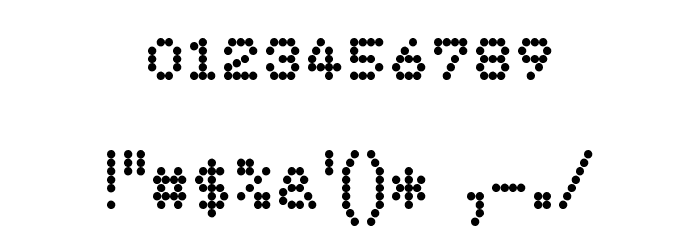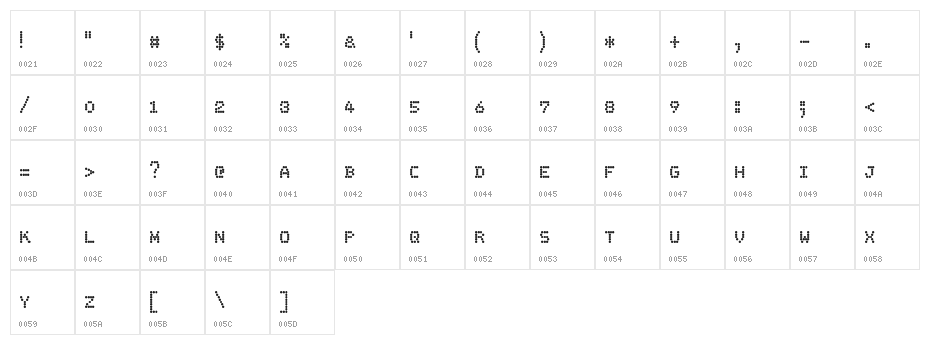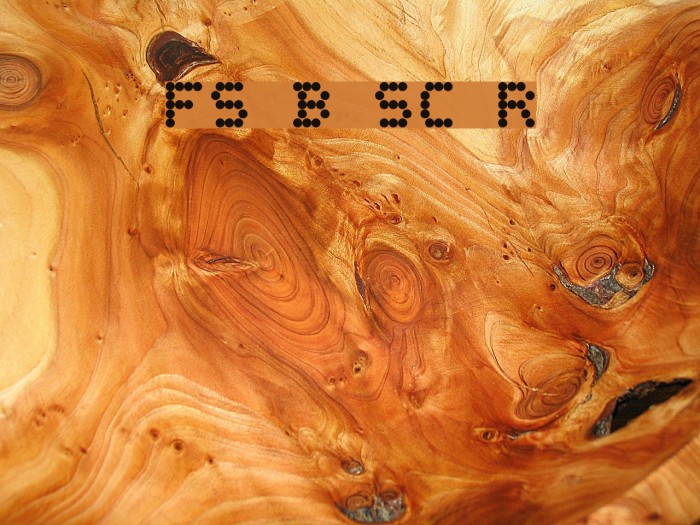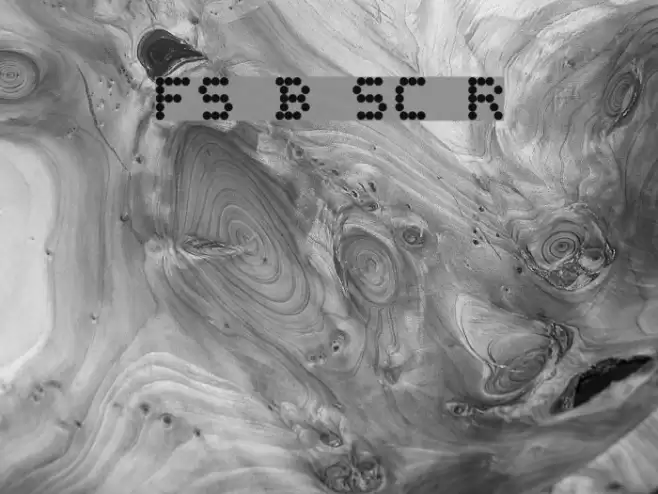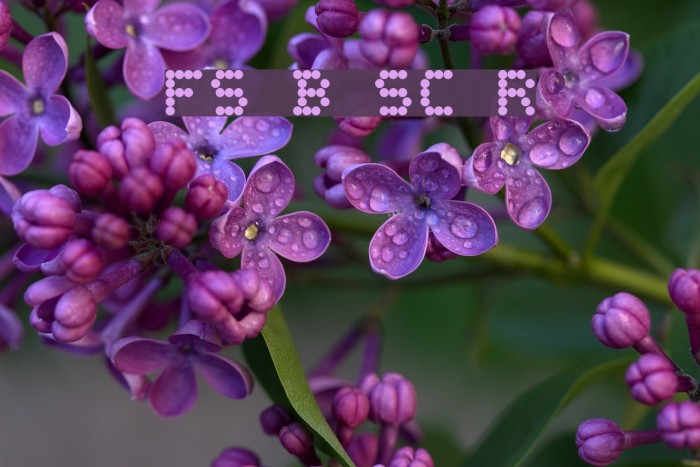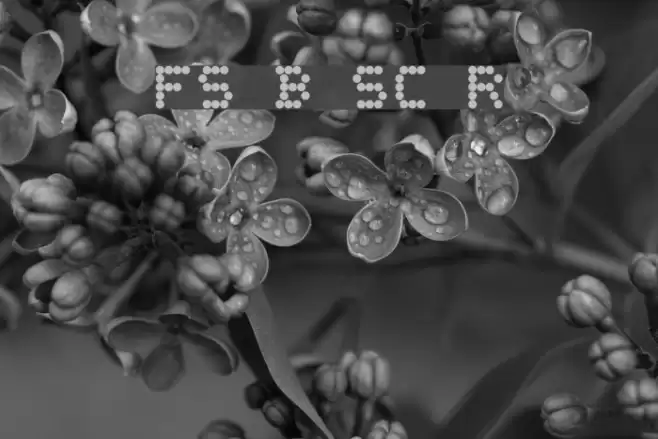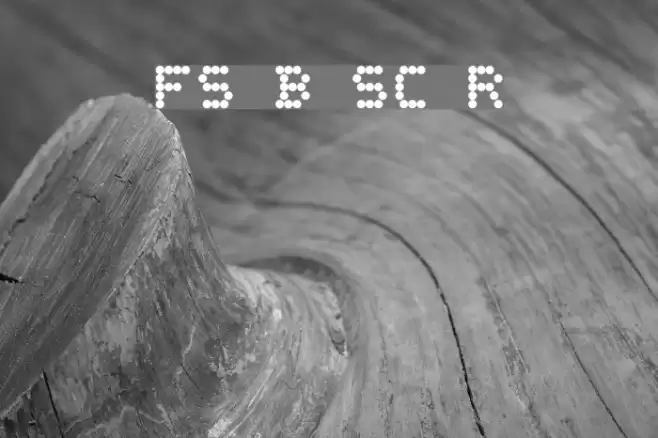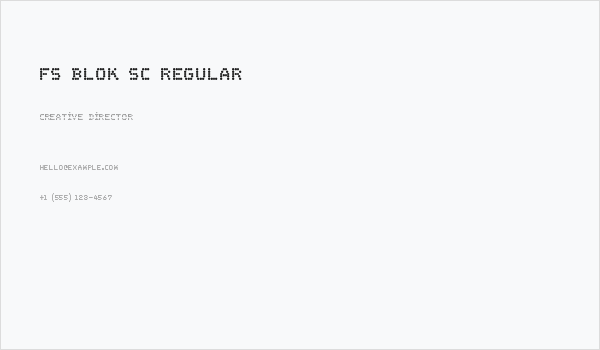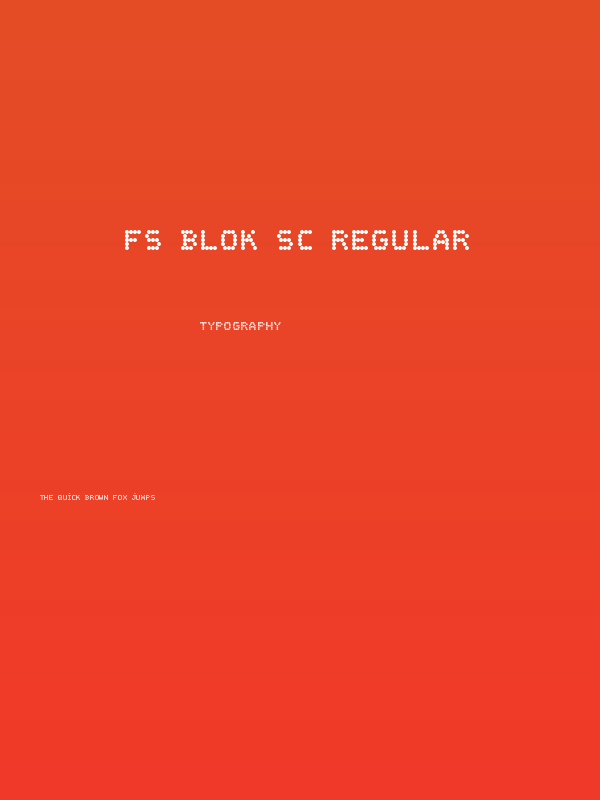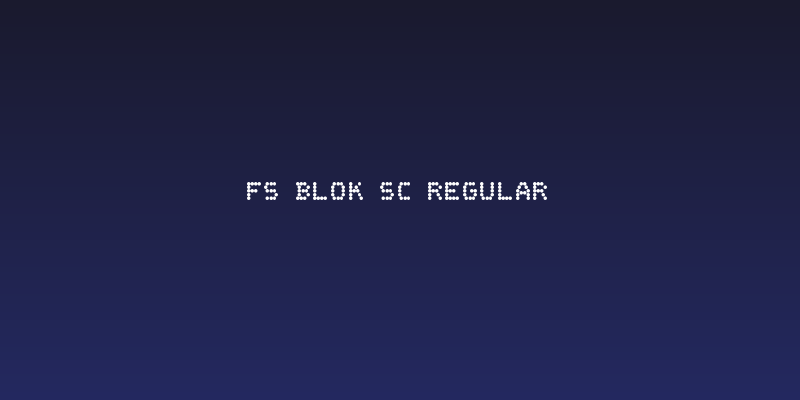
FS Blok SC Regular Font
FS Blok SC Regular Description
This font features a unique dot matrix style, where each character is constructed from a grid of evenly spaced circular dots. The design is geometric and modular, creating a digital or retro-tech aesthetic reminiscent of early digital displays or LED signage. The uniformity of the dots gives it a structured and consistent appearance, while the rounded shapes add a touch of softness to the otherwise mechanical look. This font is highly legible and distinct, making it suitable for attention-grabbing designs.
| Use Case | Headlines, Logos, Digital displays |
| Proposed Projects | Ideal for digital displays, retro-themed designs, tech-related branding, and modern art projects. |